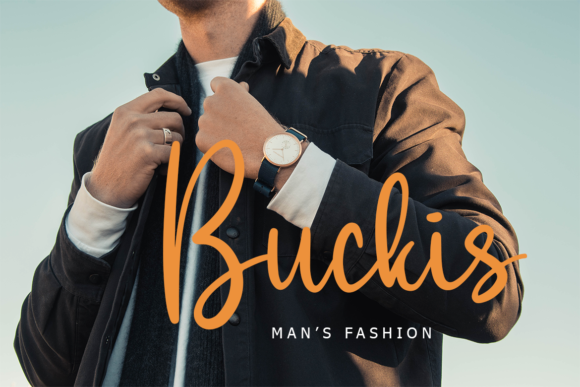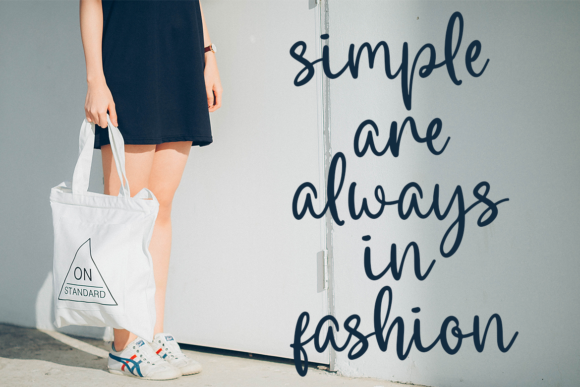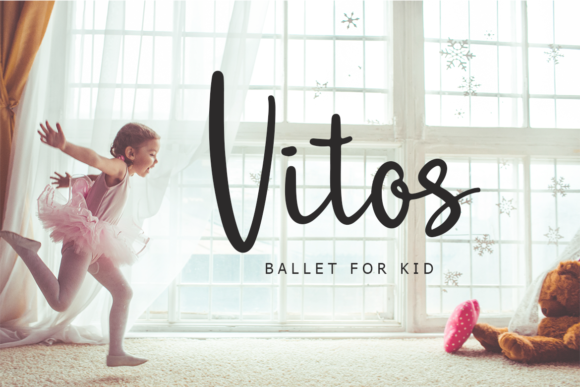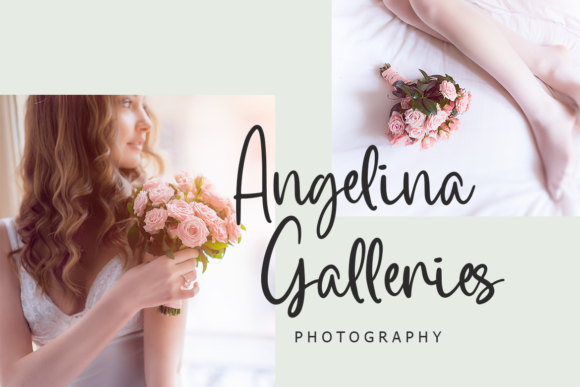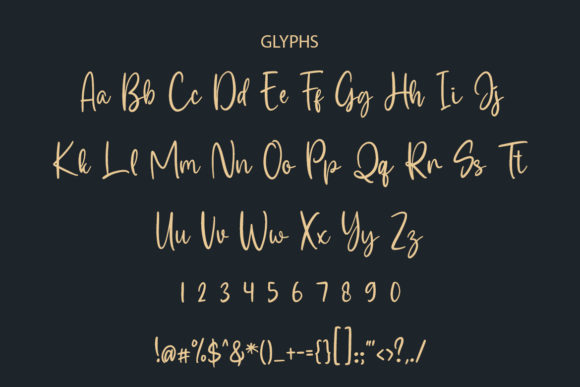
Frederica Font
About Frederica Font
Frederica is a beautiful calligraphy font. It features a varying baseline, smooth lines, gorgeous glyphs and stunning alternates.
Fall in love with its authentic feel and use it to create gorgeous wedding invitations, beautiful stationary art, eye-catching social media posts, and cute greeting cards.